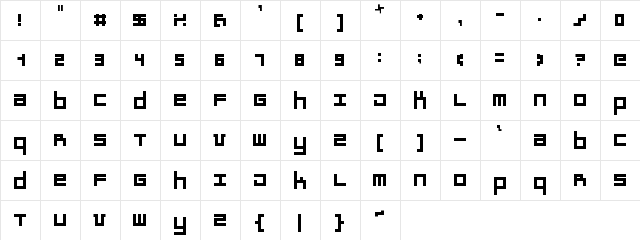
Nerka Regular
| Designer | Gvon |
Design Context for Nerka Typeface
Nerka takes a measured approach to typography — its balanced proportions and neutral character make it a reliable workhorse for both digital and print work.